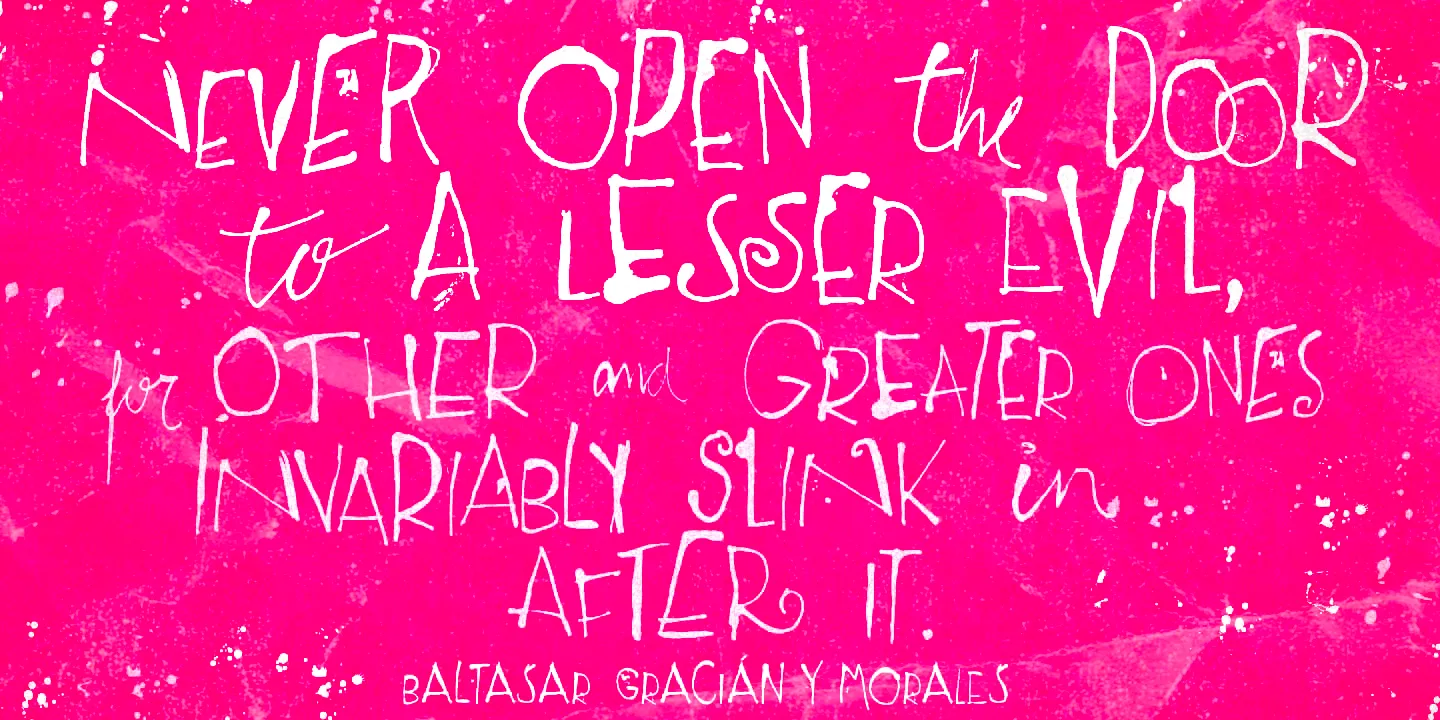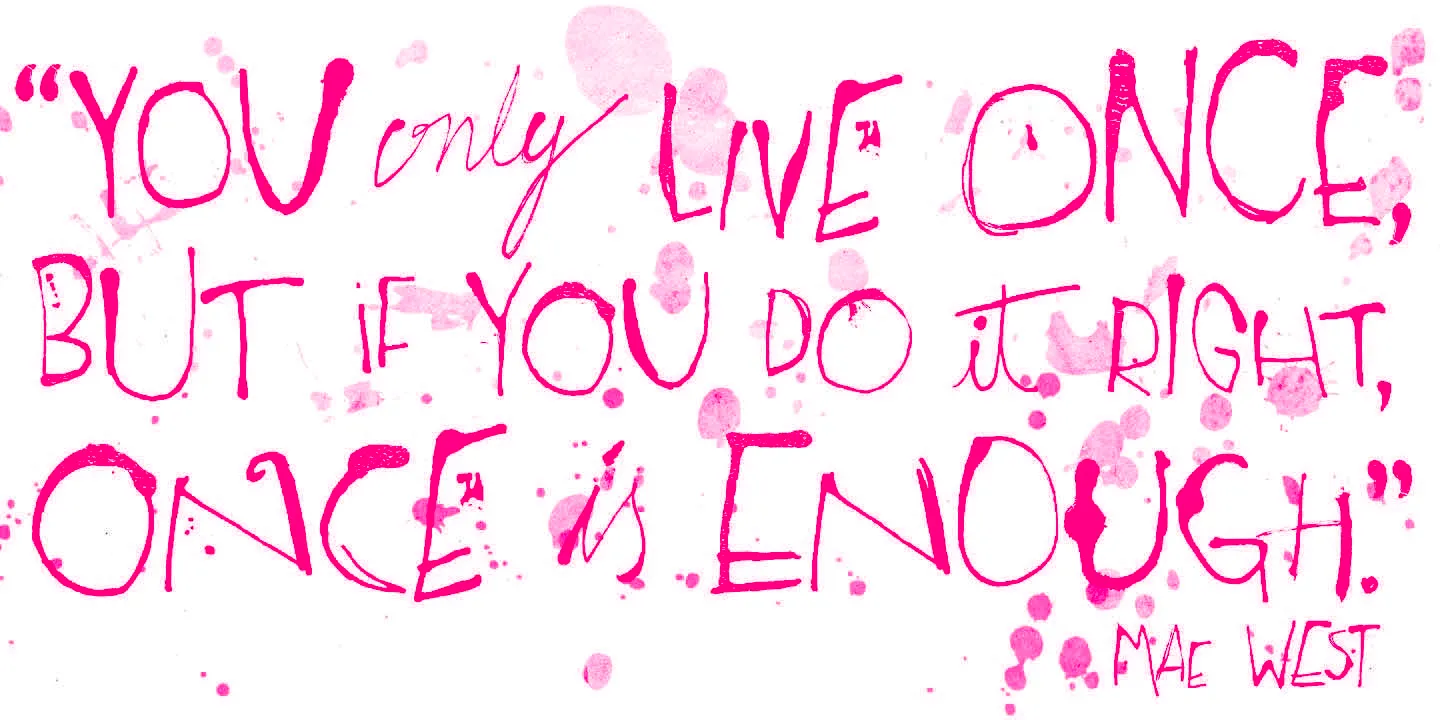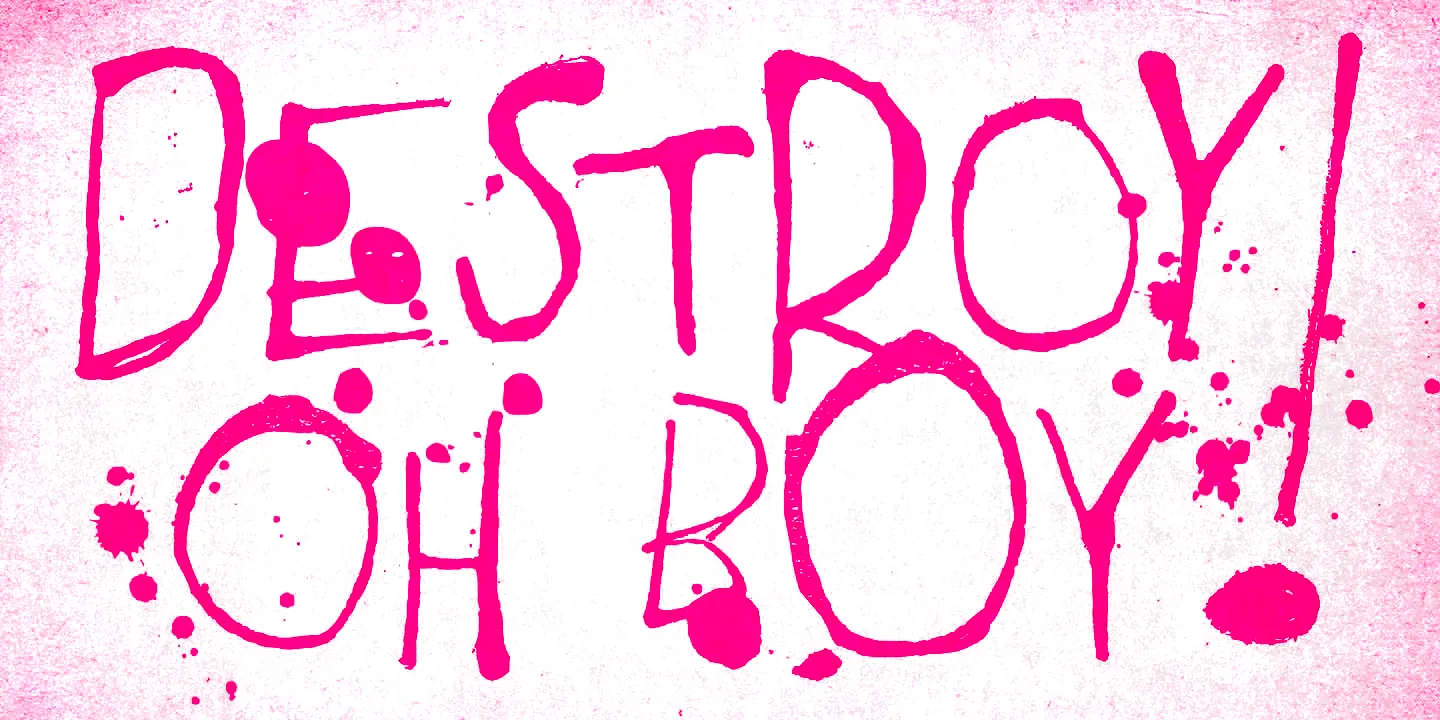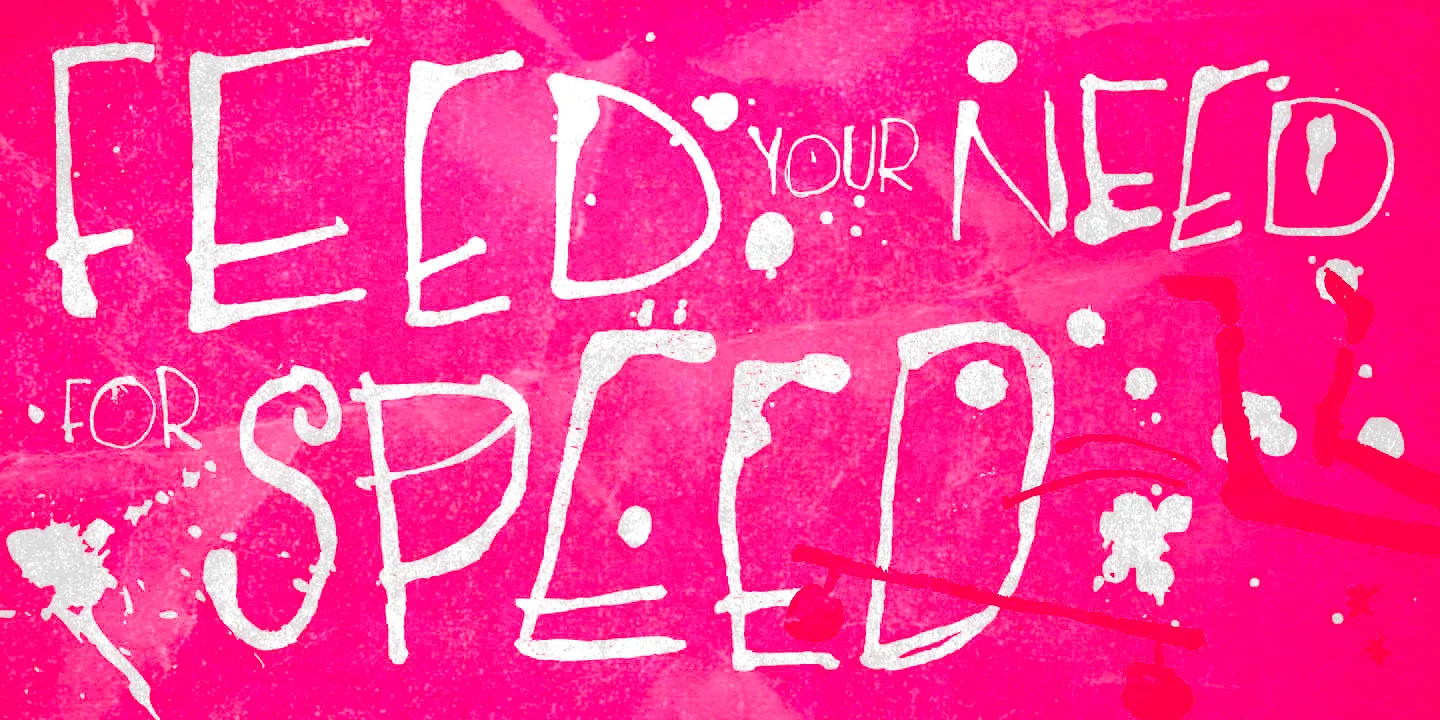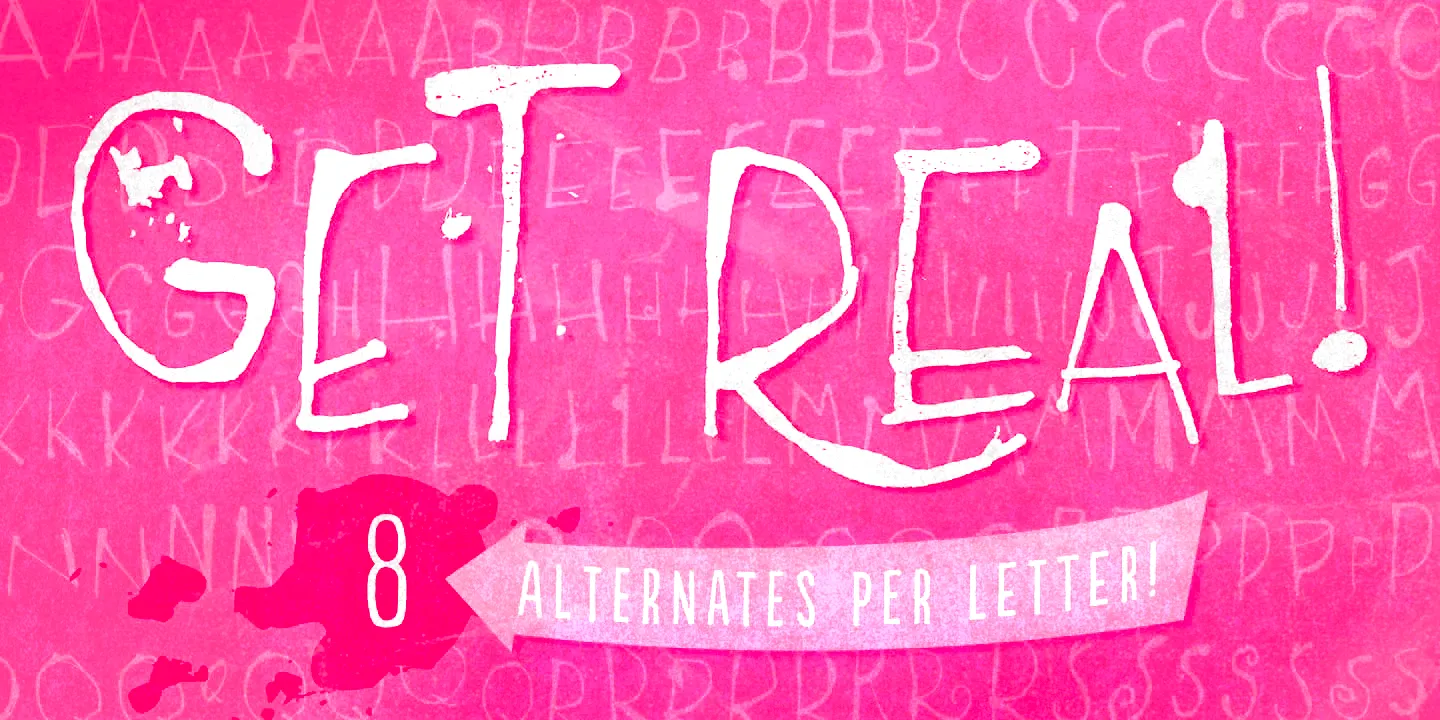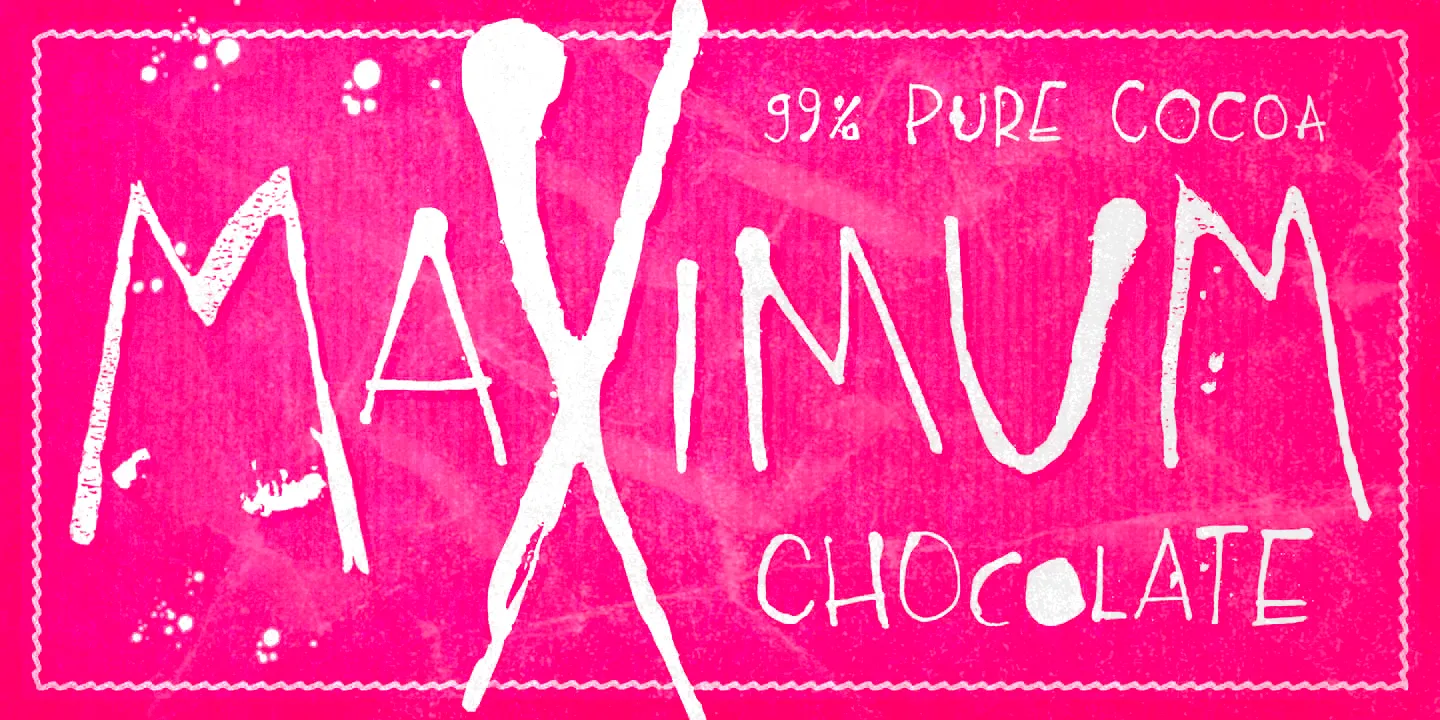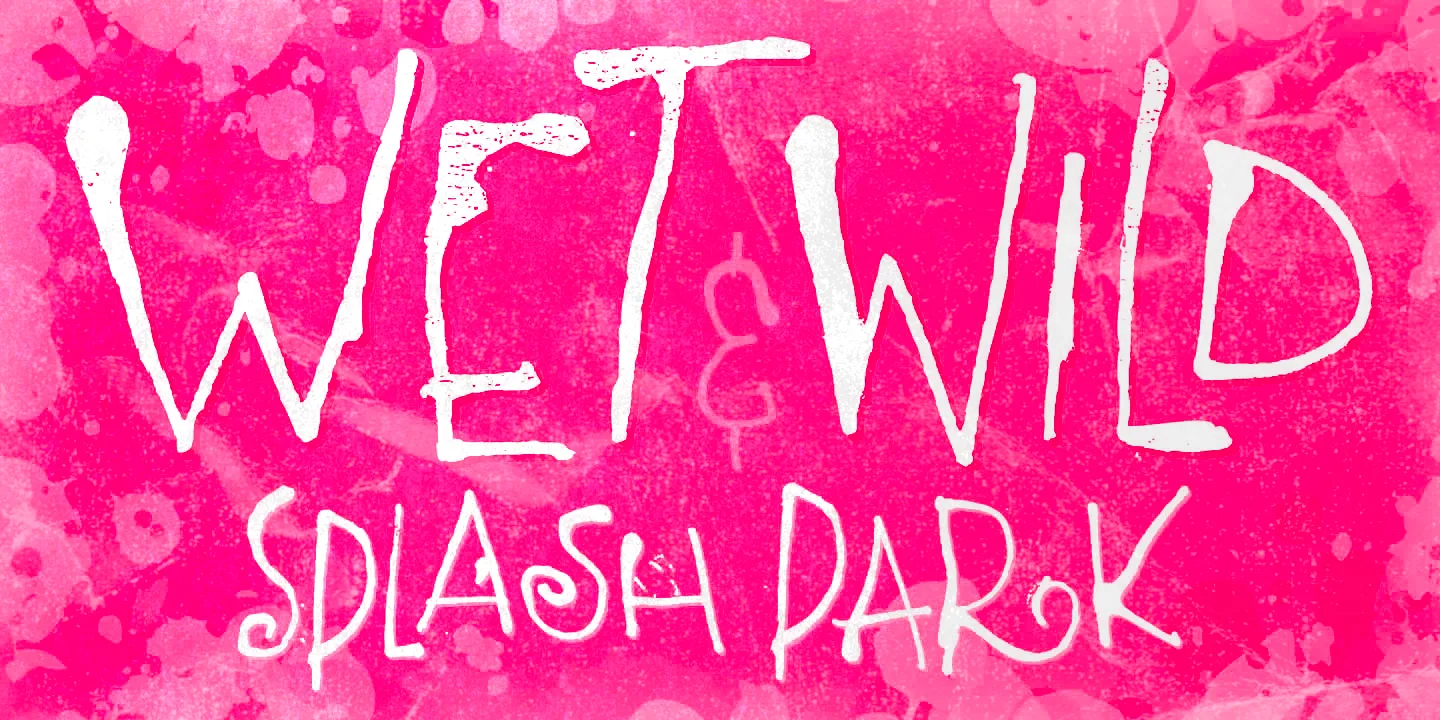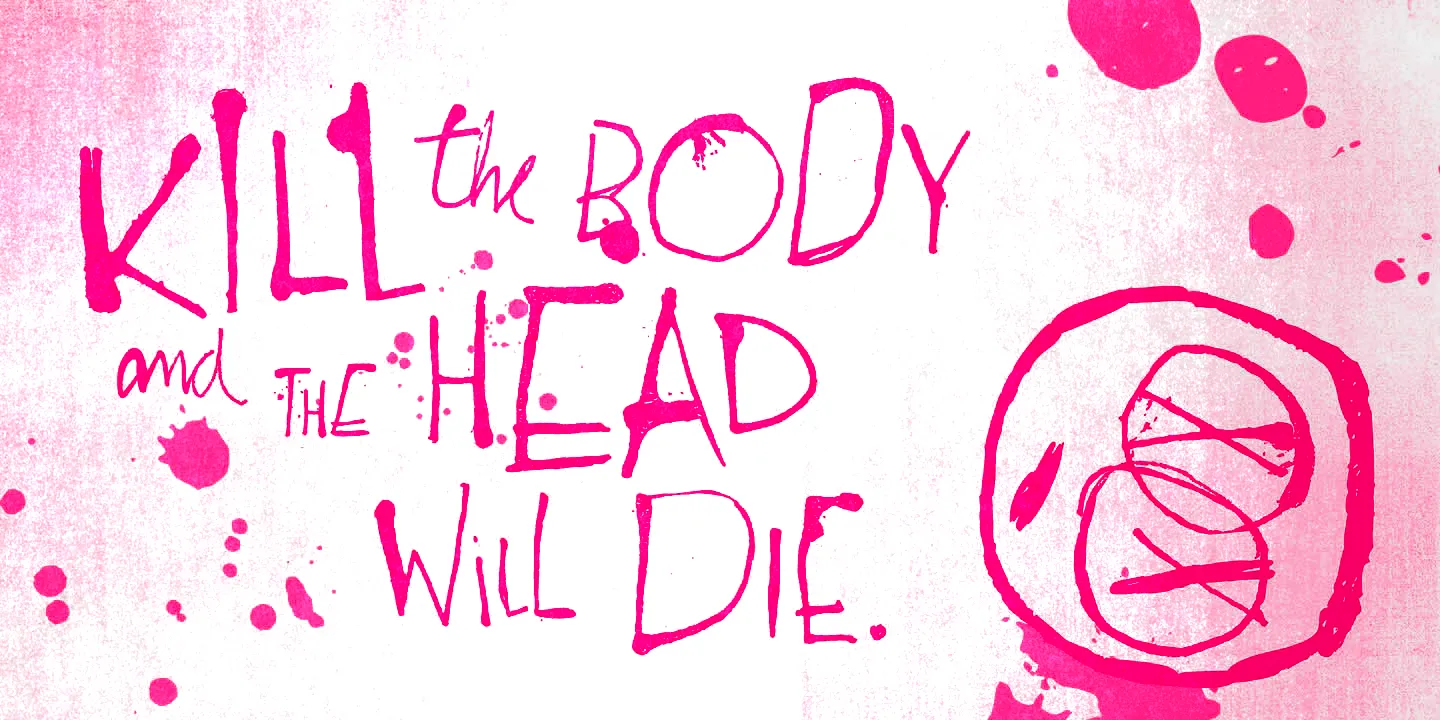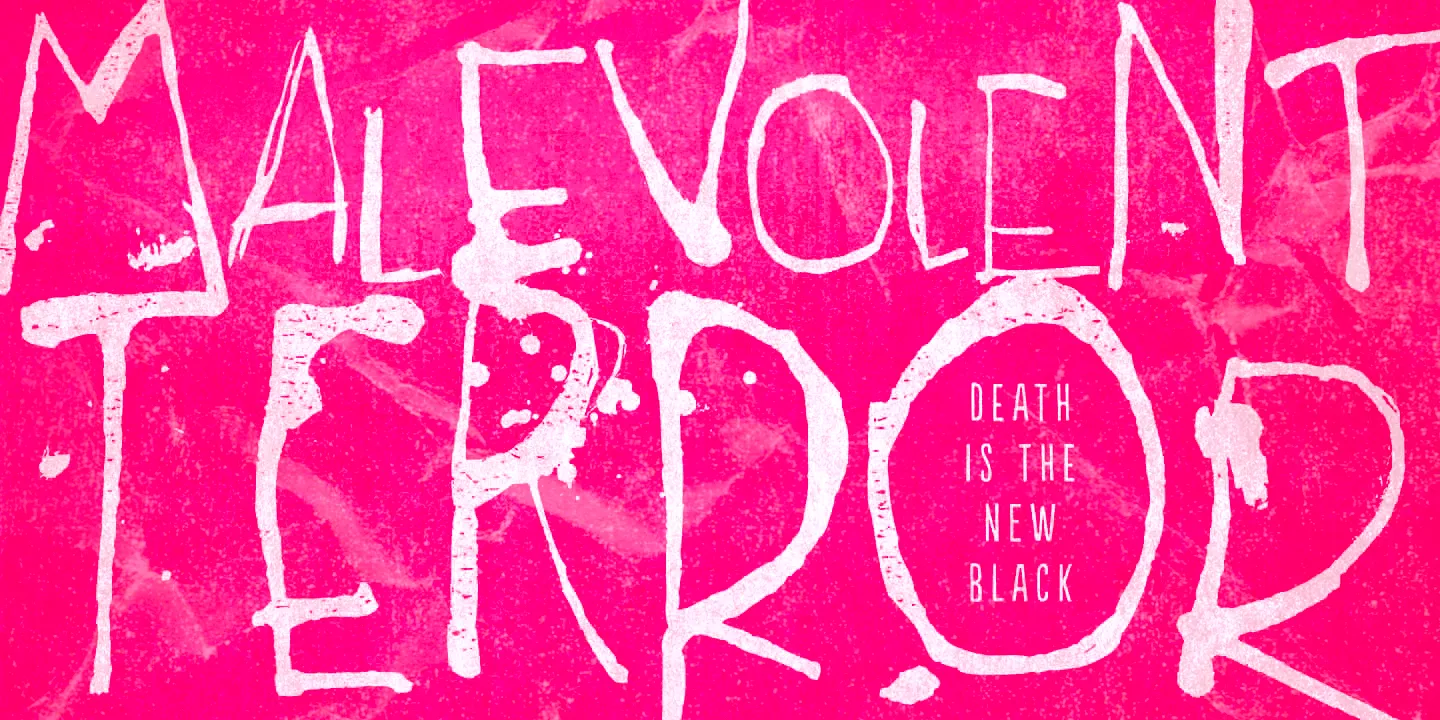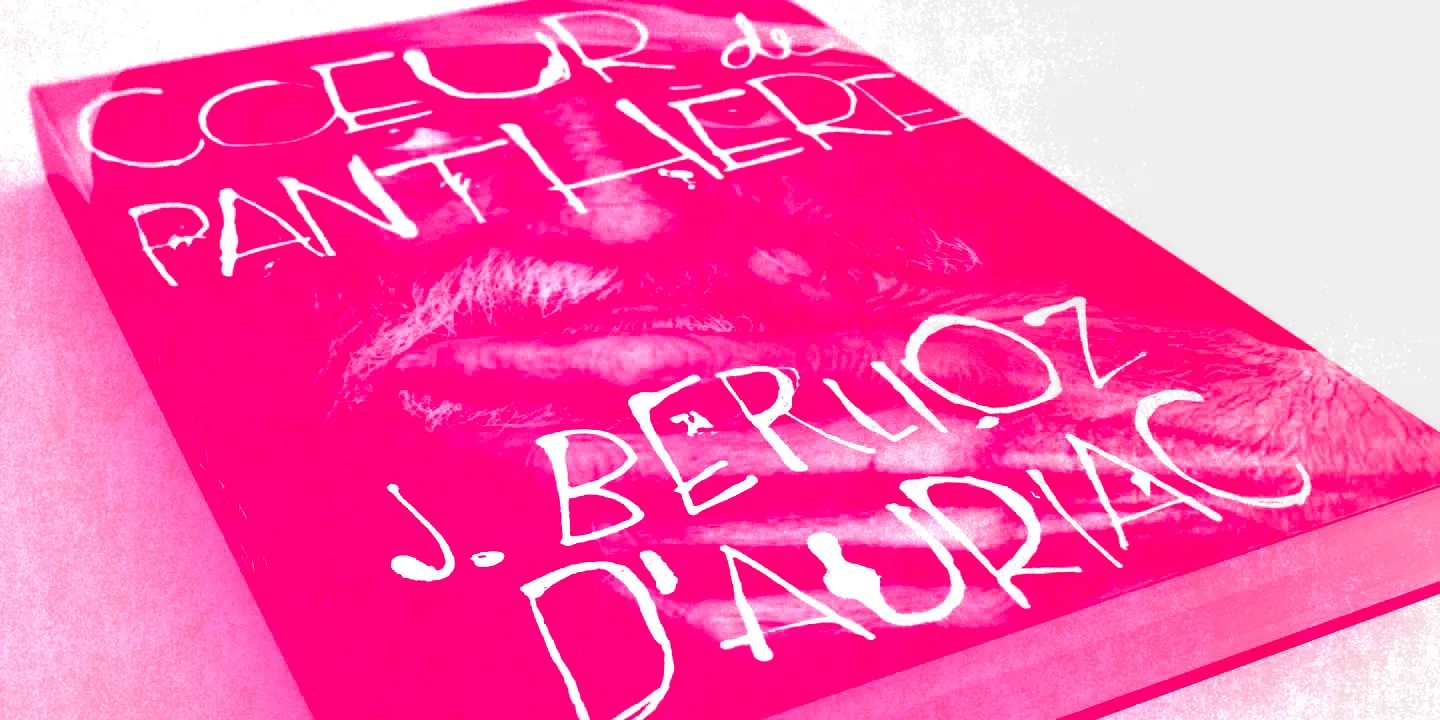
Rockinstead Font Family
Rockinstead
Rockinstead was initially painted on paper, drawing inspiration from Ralph Steadman’s seminal lettering style. At first glance, it may look quite wild. But look again: it is also stylishly unpredictable, full of attitude, and good energy. There are eight variations per letter, allowing you to create an impressively convincing hand-lettered look. The font also includes cursive catchwords, adding that charming twist. Rockinstead is undoubtedly perfect for any free-spirited design applications.